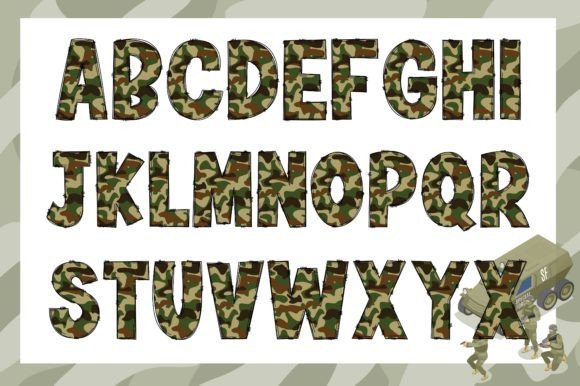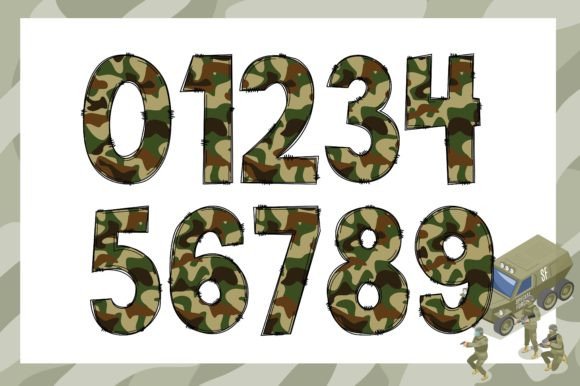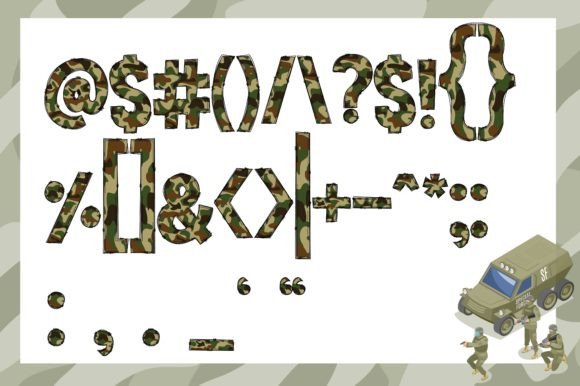
Camou Font
Camou is a bold military camouflage font. The green forest pattern makes your designs stand out a cool and original-looking color font perfect for logotypes, headlines, corporate identity, brand identity, the apparel industry, posters, music, movies, games, magazines, books, comics, and cartoons.